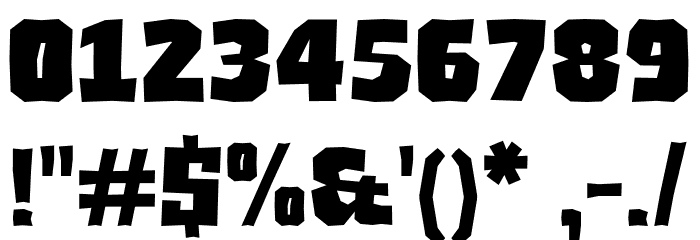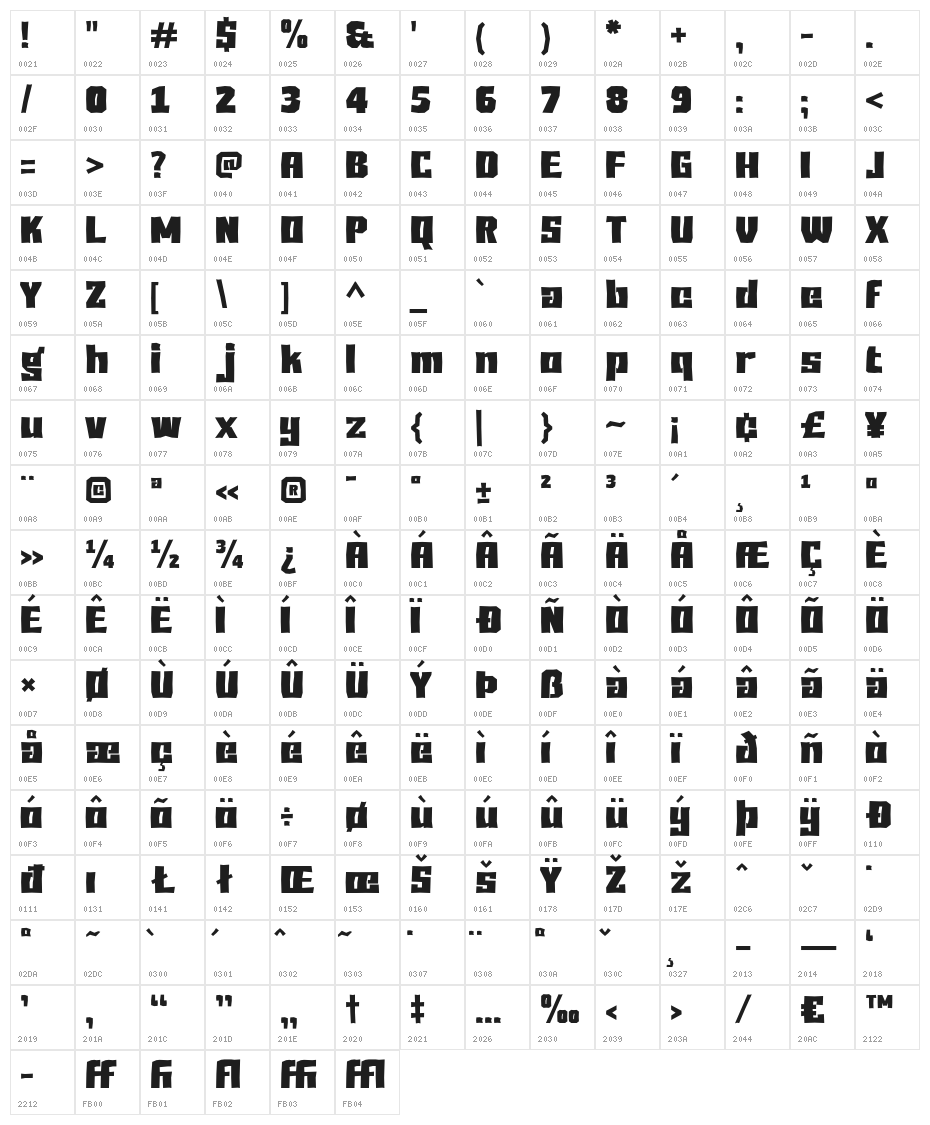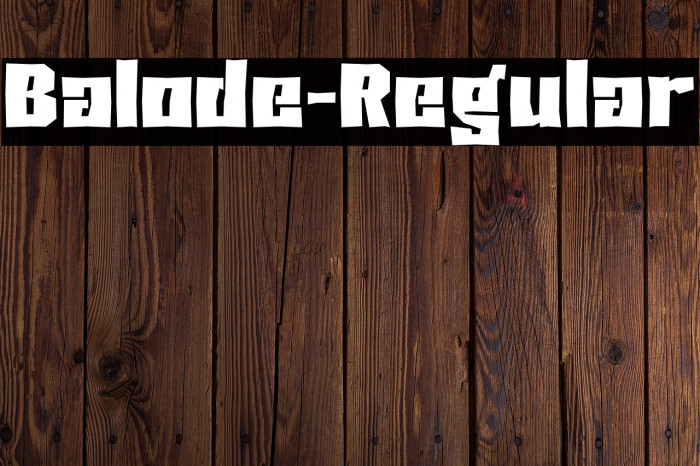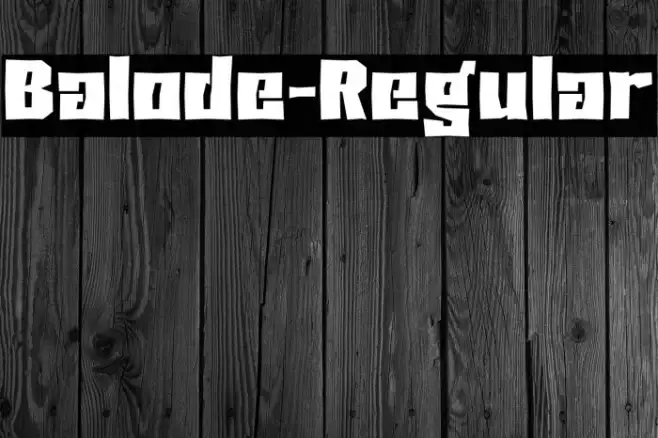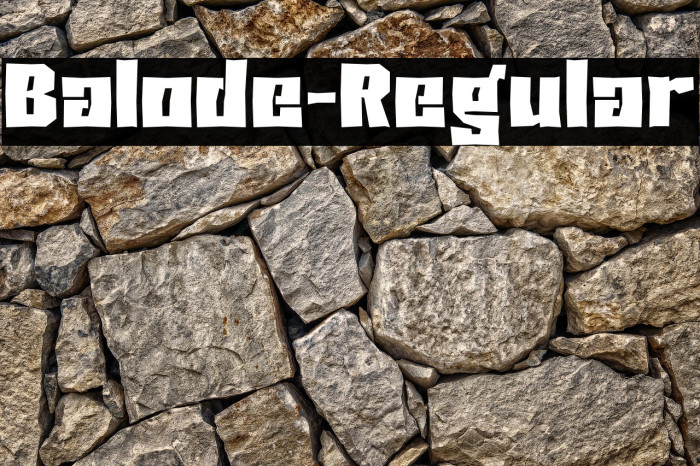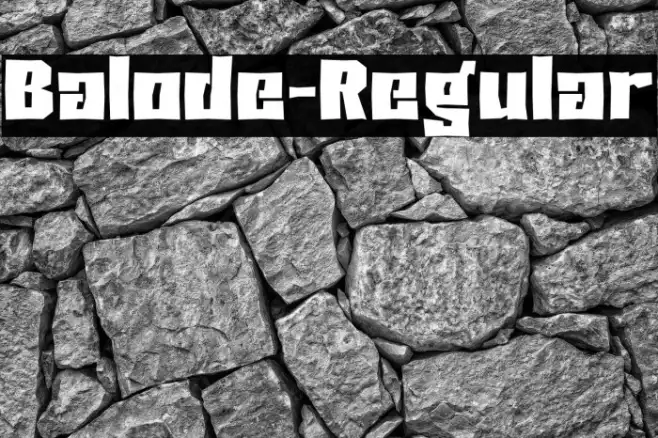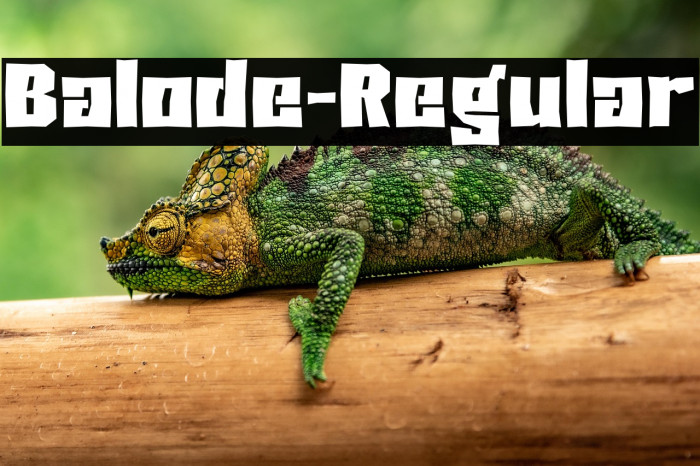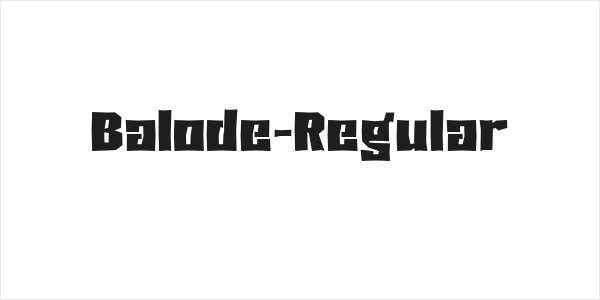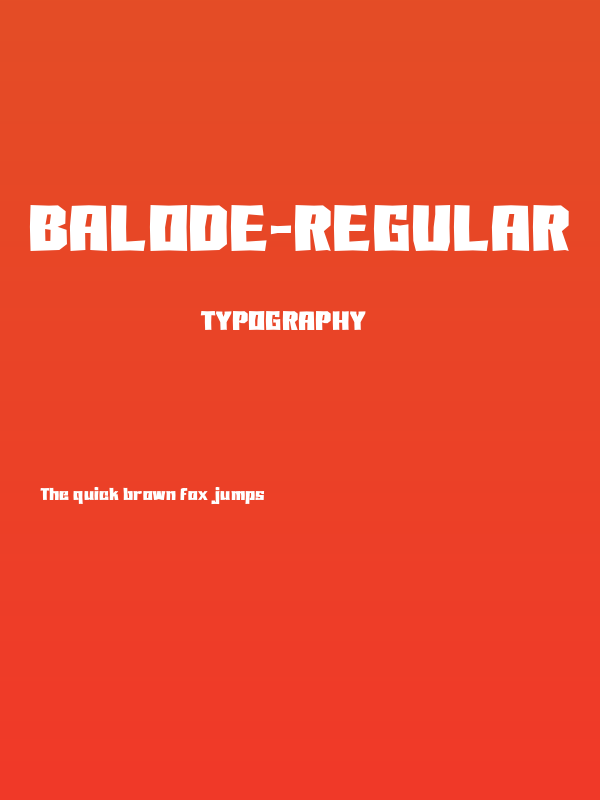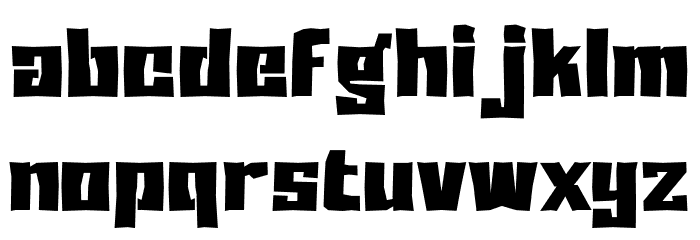
Balode-Regular Font
Balode-Regular Description
This font features a bold, angular design with a strong presence. The characters are blocky and geometric, giving them a modern and edgy appearance. The uppercase and lowercase letters maintain a consistent style, with sharp edges and a slightly condensed form. The numbers and special characters follow the same design principles, ensuring uniformity across all glyphs. This font's unique style makes it stand out, perfect for projects that require a striking and unconventional look.
| Proposed Projects | Ideal for posters, album covers, branding, and any project needing a bold statement. |